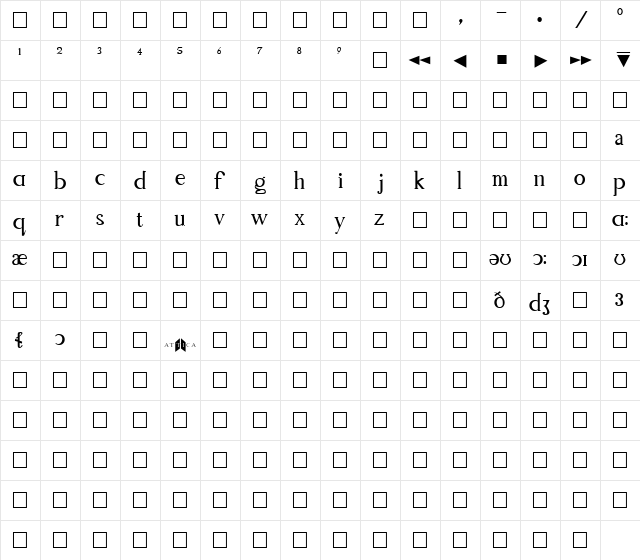
Phonetic v1.5 phonetic chars
Design Context for Phonetic Typeface
Phonetic is a composed and adaptable typeface that performs quietly and consistently across a wide range of design contexts.